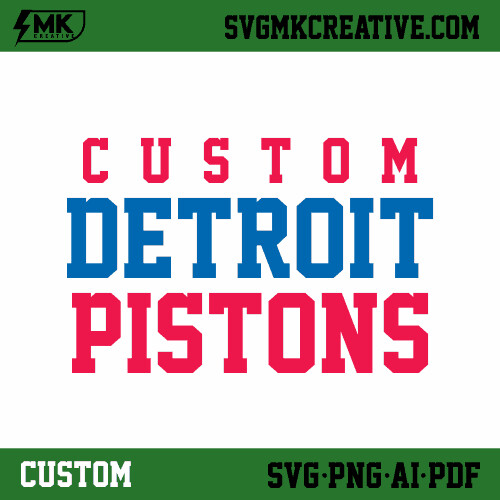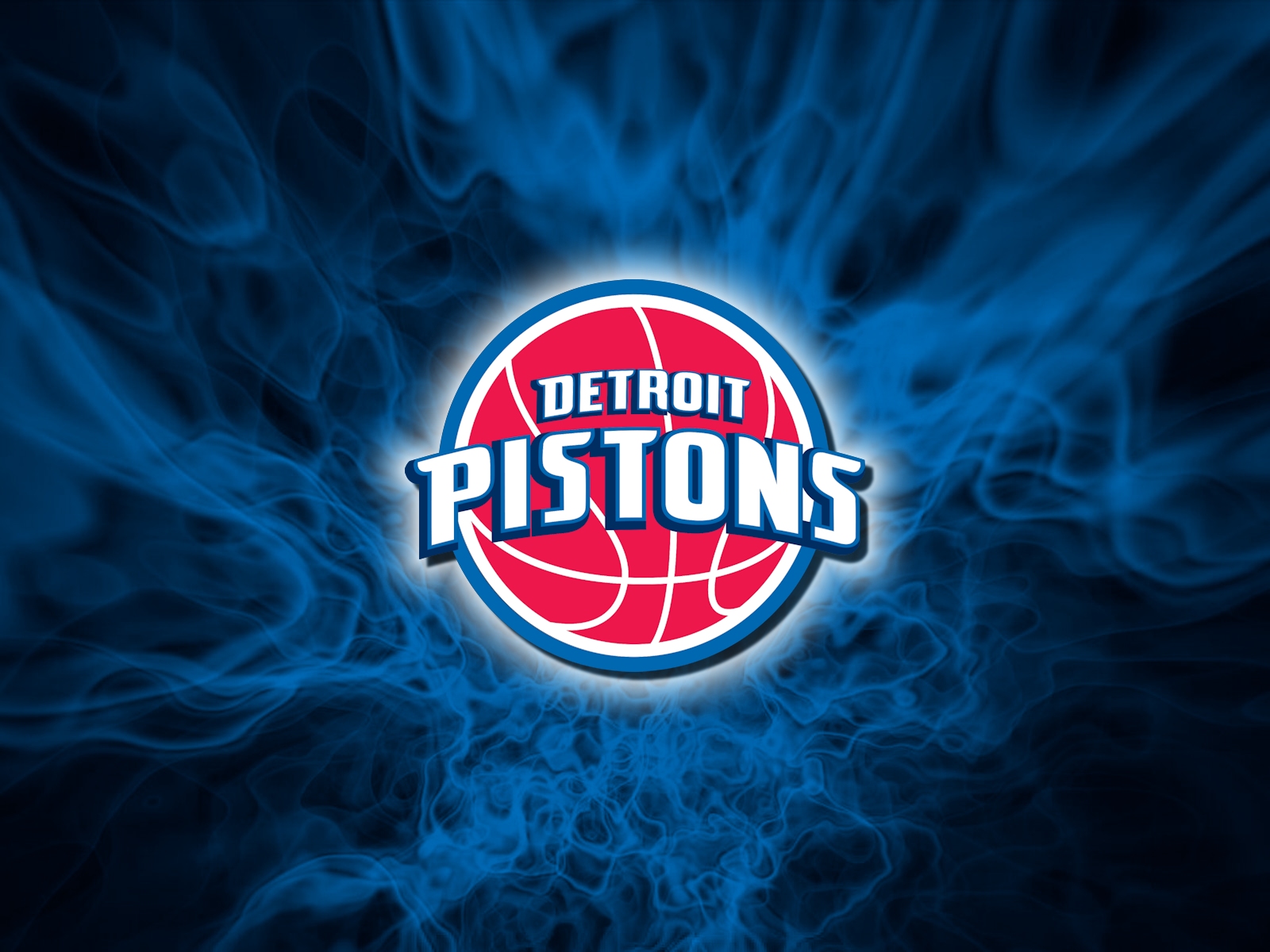
Detroit Pistons Font . Browse by alphabetical listing, by style, by author or by popularity. ️ this font has been downloaded 6,000+ times. Nba pistons font is free for both personel and. Archive of freely downloadable fonts. Learn about the history and achievements of the pistons, a. Explore the evolution of the detroit pistons logo—its history, design, and impact on basketball branding and detroit's sports identity. Thousands of designers (famous or not) use the image font detection system to find a font or similar free fonts from an image. Download and install the nba pistons font for free from ffonts.net. Nba detroit pistons font family series mainly provide regular and other font styles. It was specifically created for the pistons, based on its '90s logo, which was of course hand drawn and the taken to illustrator. Download zurich bold extra condensed bt, a font based on the detroit pistons logo.
Nba detroit pistons font family series mainly provide regular and other font styles. Thousands of designers (famous or not) use the image font detection system to find a font or similar free fonts from an image. It was specifically created for the pistons, based on its '90s logo, which was of course hand drawn and the taken to illustrator. Browse by alphabetical listing, by style, by author or by popularity. Nba pistons font is free for both personel and. Explore the evolution of the detroit pistons logo—its history, design, and impact on basketball branding and detroit's sports identity. ️ this font has been downloaded 6,000+ times. Archive of freely downloadable fonts. Download zurich bold extra condensed bt, a font based on the detroit pistons logo. Learn about the history and achievements of the pistons, a.
Detroit Pistons, time da NBA, altera logo Design Conceitual Detroit Pistons Font It was specifically created for the pistons, based on its '90s logo, which was of course hand drawn and the taken to illustrator. Nba pistons font is free for both personel and. Download and install the nba pistons font for free from ffonts.net. Download zurich bold extra condensed bt, a font based on the detroit pistons logo. Archive of freely. Detroit Pistons Font.
Detroit Pistons Logo Font Detroit Pistons Font Nba pistons font is free for both personel and. Learn about the history and achievements of the pistons, a. Explore the evolution of the detroit pistons logo—its history, design, and impact on basketball branding and detroit's sports identity. Download zurich bold extra condensed bt, a font based on the detroit pistons logo. Nba detroit pistons font family series mainly provide. Detroit Pistons Font.
NBA Pistons free Font What Font Is Detroit Pistons Font Nba pistons font is free for both personel and. Thousands of designers (famous or not) use the image font detection system to find a font or similar free fonts from an image. Browse by alphabetical listing, by style, by author or by popularity. Learn about the history and achievements of the pistons, a. Download zurich bold extra condensed bt, a. Detroit Pistons Font.
Detroit Pistons Basketball NBA Logo Symbol Digital Art by Erwin Saputra Detroit Pistons Font ️ this font has been downloaded 6,000+ times. Browse by alphabetical listing, by style, by author or by popularity. Nba pistons font is free for both personel and. Download zurich bold extra condensed bt, a font based on the detroit pistons logo. Archive of freely downloadable fonts. Thousands of designers (famous or not) use the image font detection system to. Detroit Pistons Font.
12 Styles NBA Detroit Pistons Svg, Detroit Pistons Font Nba pistons font is free for both personel and. ️ this font has been downloaded 6,000+ times. Explore the evolution of the detroit pistons logo—its history, design, and impact on basketball branding and detroit's sports identity. Nba detroit pistons font family series mainly provide regular and other font styles. Archive of freely downloadable fonts. Browse by alphabetical listing, by style,. Detroit Pistons Font.
Detroit Pistons — Sports Design Agency Detroit Pistons Font Thousands of designers (famous or not) use the image font detection system to find a font or similar free fonts from an image. Nba pistons font is free for both personel and. Archive of freely downloadable fonts. Nba detroit pistons font family series mainly provide regular and other font styles. It was specifically created for the pistons, based on its. Detroit Pistons Font.
detroit pistons event,brand Detroit Pistons Font Nba pistons font is free for both personel and. Archive of freely downloadable fonts. ️ this font has been downloaded 6,000+ times. Download zurich bold extra condensed bt, a font based on the detroit pistons logo. It was specifically created for the pistons, based on its '90s logo, which was of course hand drawn and the taken to illustrator. Browse. Detroit Pistons Font.